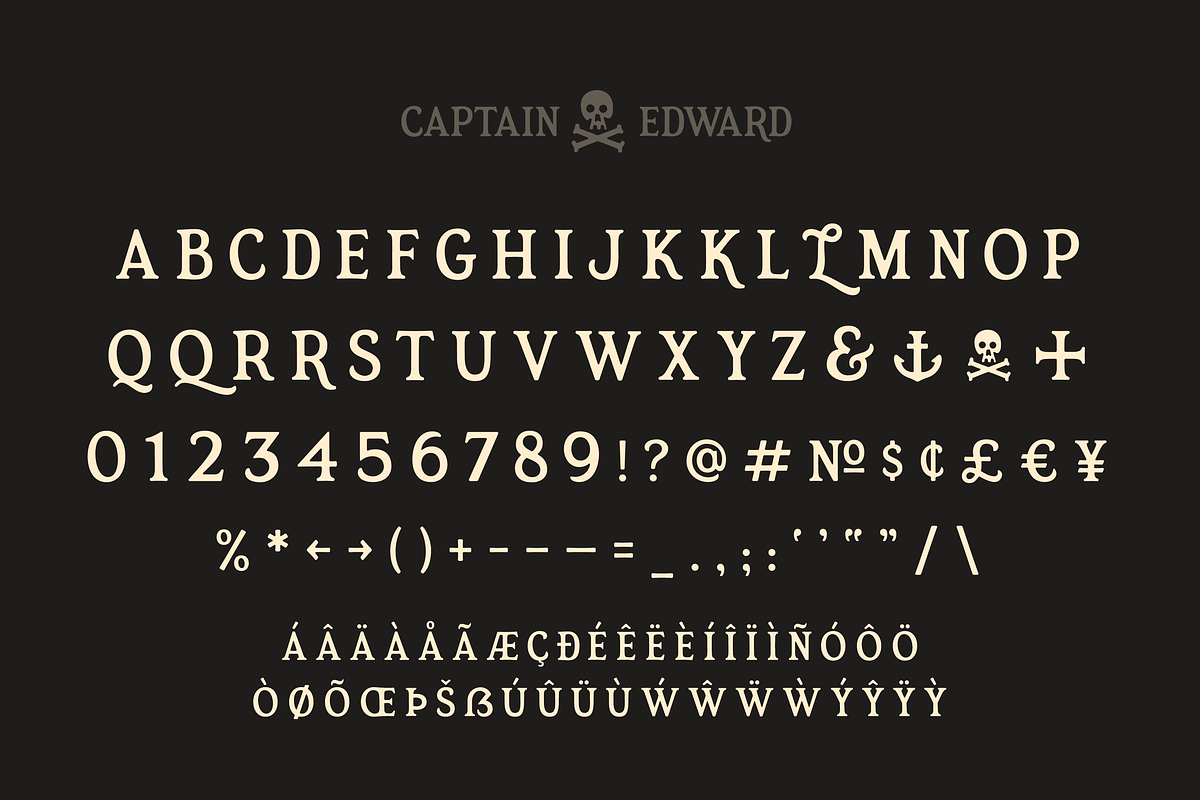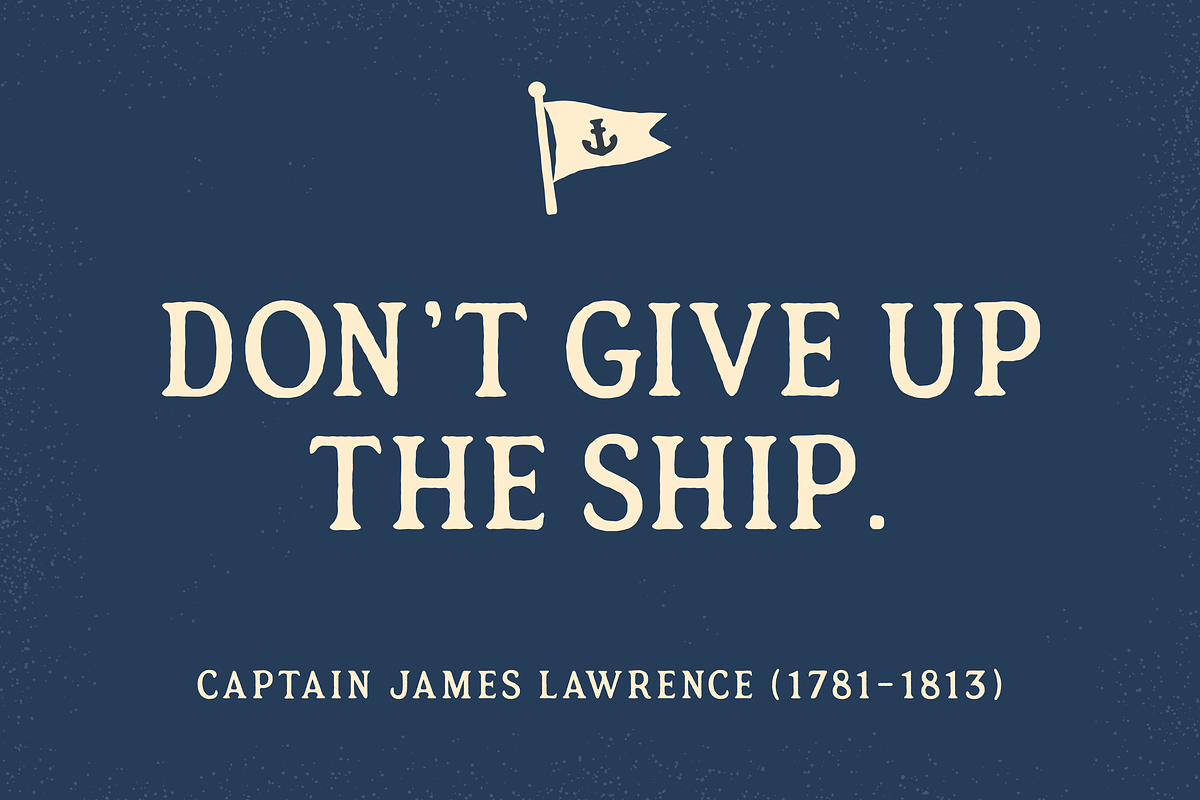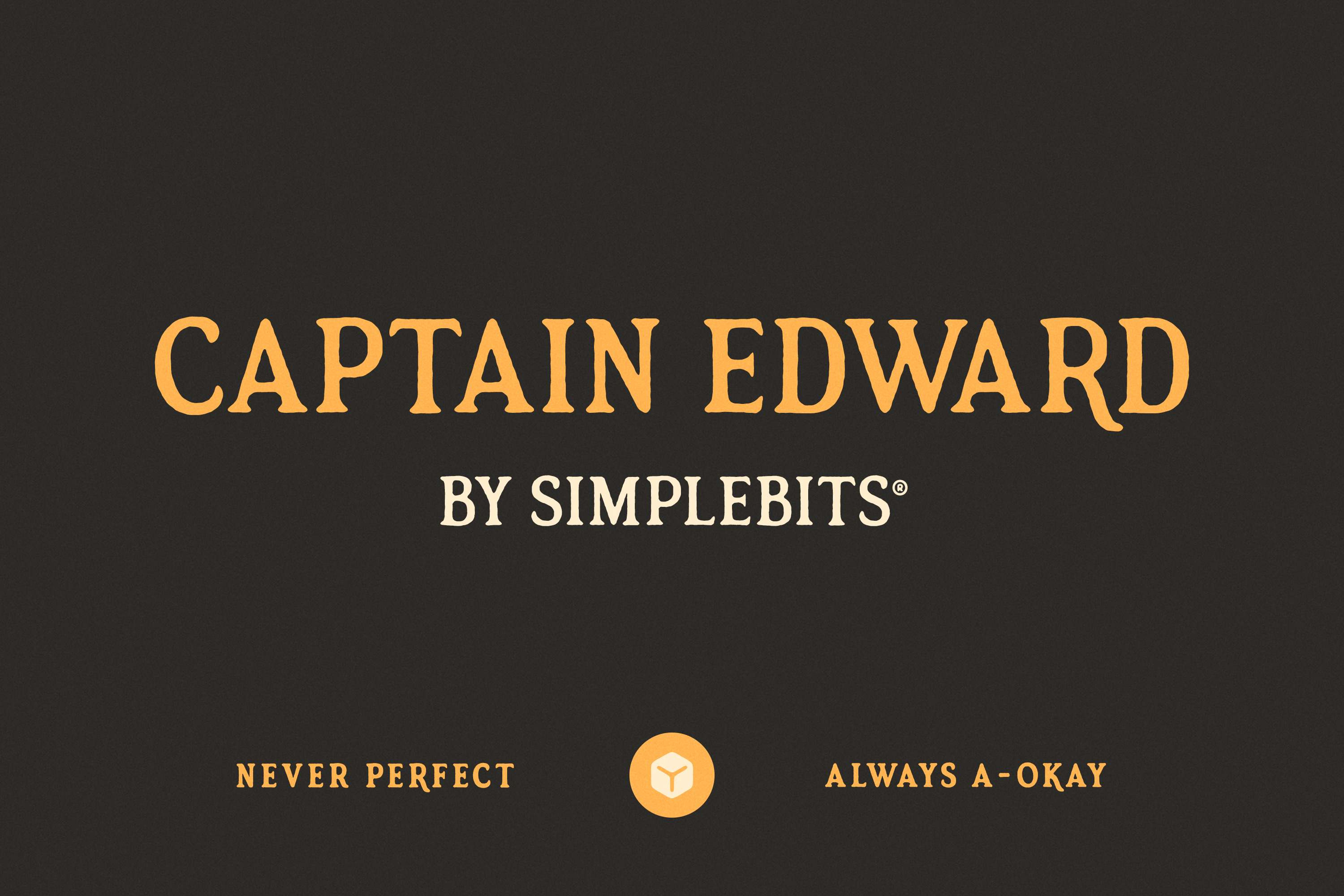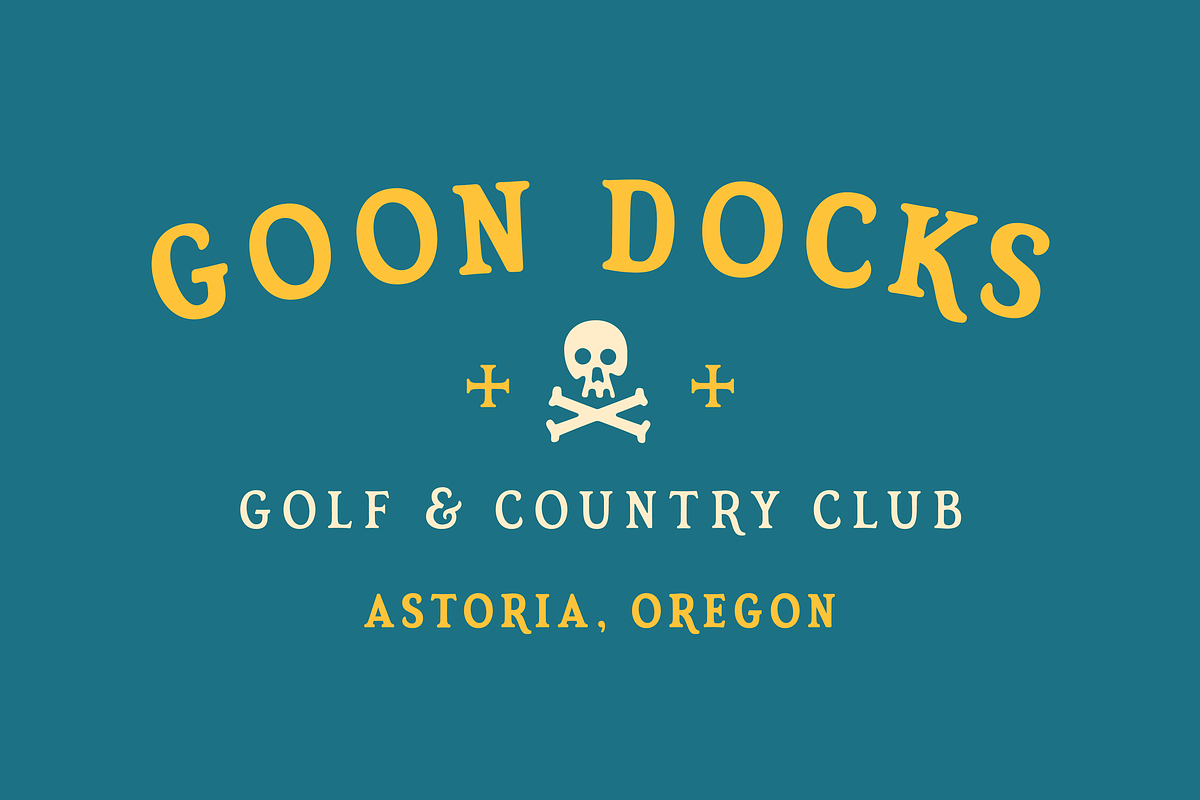
Captain Edward — Serif Display Font
Inspired by the pirates of the Atlantic, Captain Edward is an all-caps display serif. Named after Captain Edward Teach—otherwise known as Blackbeard. The font takes cues from Cooper Black's lighter-weight siblings as well as inspiration from the rugged New England coast, where Blackbeard and other pirates terrorized the high seas.
Includes numbers, basic punctuation, diacritics and support for some European languages—plus a few bonus alternate swashy characters and glyphs (K, L, Q, R, X, +, #, &). Includes four styles: Regular, Rough, Bold, and Bold Rough.